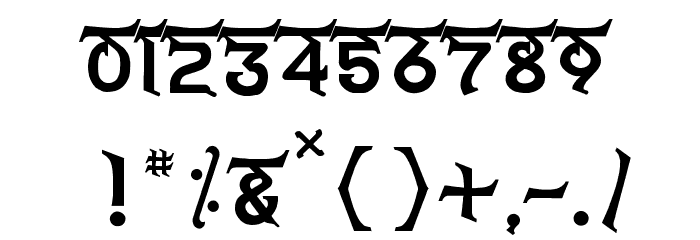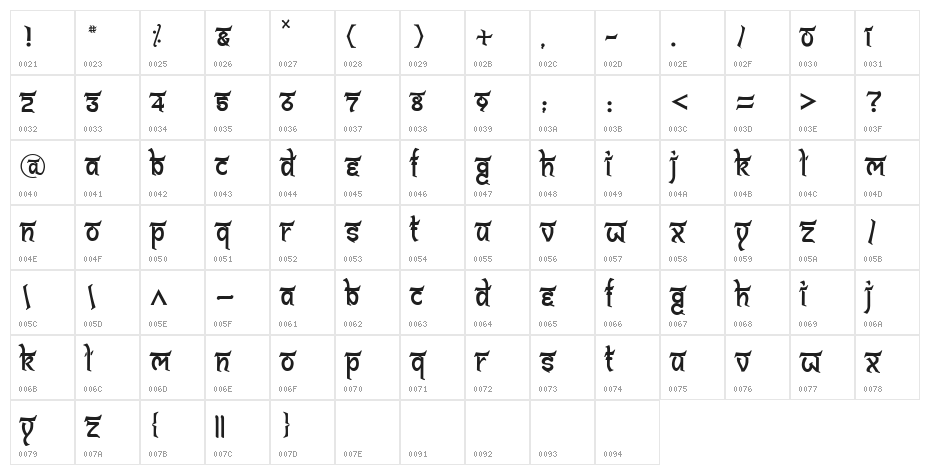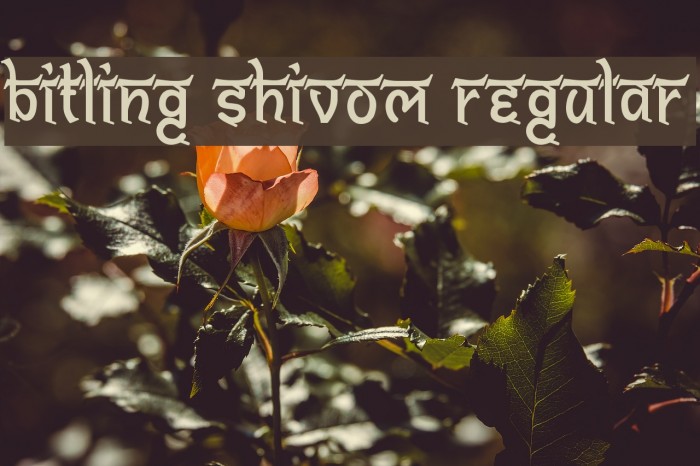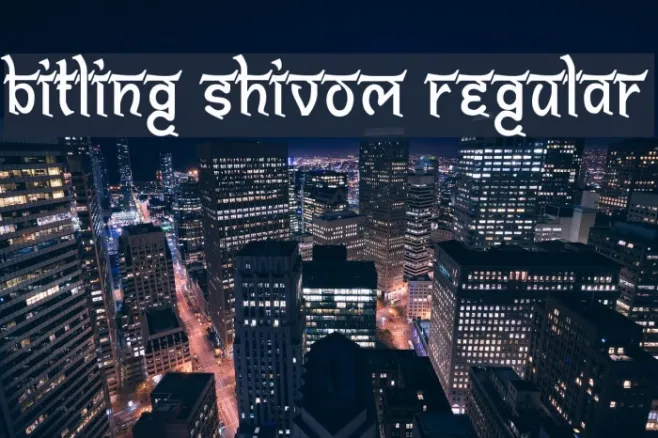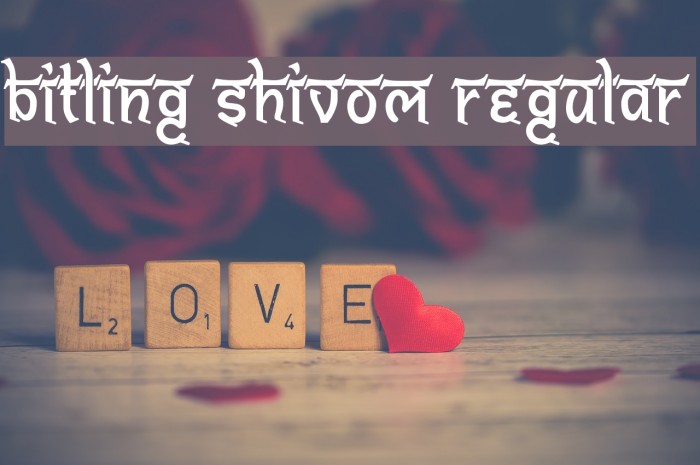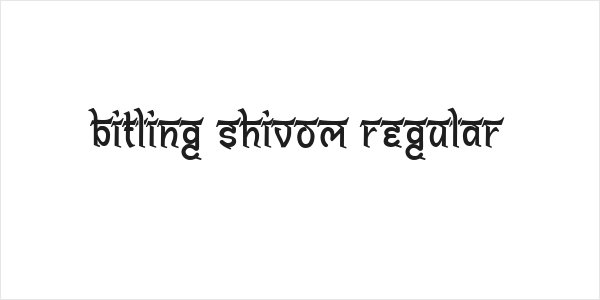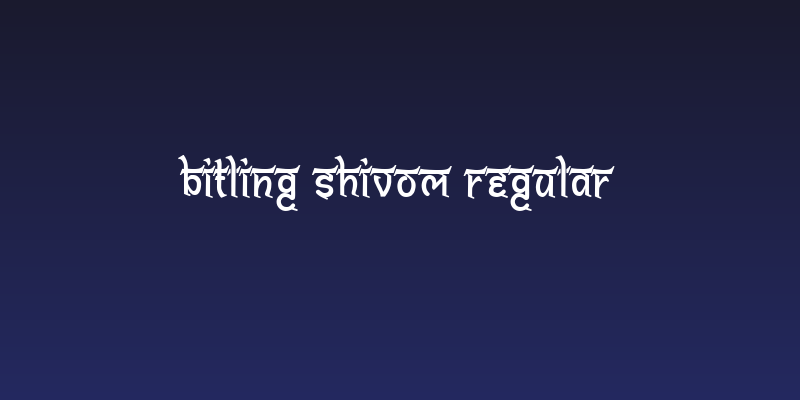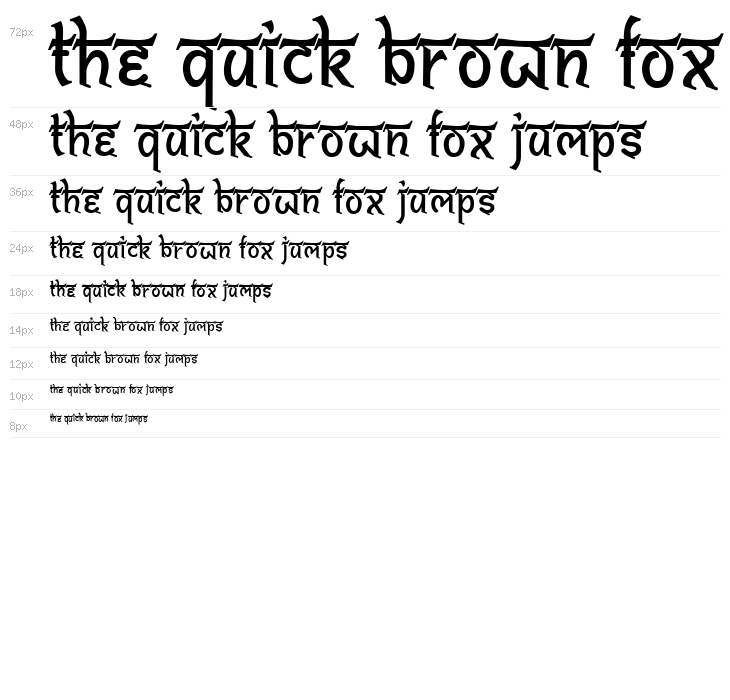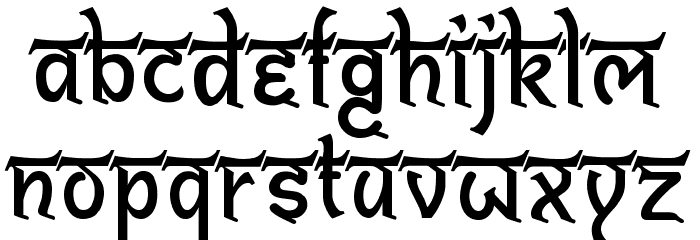
Bitling shivom Regular Font
Bitling shivom Regular Description
This font features a unique and decorative style with intricate details that resemble traditional calligraphy. The characters have a distinct flair, with sharp angles and elegant curves that give it a sophisticated and artistic appearance. The uppercase and lowercase letters maintain a consistent design, while the numerals and special characters complement the overall aesthetic. The font's ornate style makes it suitable for projects that require a touch of elegance and creativity.